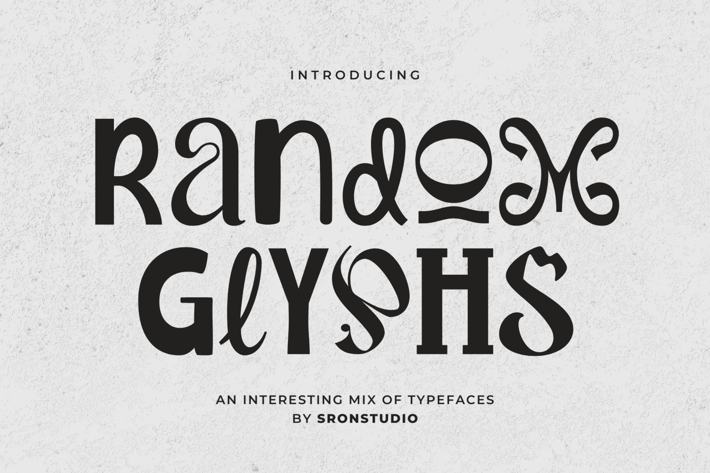
Random Glyphs - Quirky Mixed Font
Random Glyphs is a quirky and creative mixed display font that brings an eclectic and playful vibe to your designs. With its unique and unpredictable character shapes, itβs perfect for posters, branding, album covers, or any project that needs a bold and unconventional touch. Make your work stand out with Random Glyphs!
- Alternates Letter
- Numeral & Punctuation
- Multilingual support